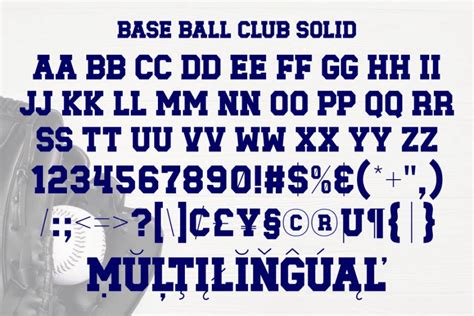
Download Baseball Club Fonts: Solid Style Guide
Hey guys! Ever wanted to give your project that classic, sporty vibe ? Well, you’re in luck! We’re diving deep into the world of baseball club fonts , specifically the solid style. These fonts are more than just letters; they’re a statement. They scream tradition, team spirit, and a whole lot of fun. In this guide, we’ll explore everything you need to know about finding and using these awesome fonts to make your designs hit it out of the park. Whether you’re designing a team logo, a sports-themed website, or just want to add a touch of athletic flair to your project, we’ve got you covered. Let’s get started and make your designs champions!
What Makes a Baseball Club Font ‘Solid’?
So, what exactly is a “solid” baseball club font, you ask? Think of it like this: it’s the unwavering foundation of your design. These fonts typically have a bold, robust appearance, leaving no room for negative space within the letterforms. They’re designed to be easily readable from afar, making them perfect for signage, jerseys, and any application where clarity is key. Unlike their outline or shadow counterparts, solid fonts are all about that in-your-face impact . They’re the workhorses of the sports design world, providing a strong visual anchor that exudes confidence and authority. Their straightforward nature makes them incredibly versatile, working well in both print and digital media. The design essence is to deliver a direct message! You won’t find any fancy flourishes or intricate details here; just clean, impactful letterforms that get the job done. The aesthetic draws inspiration from classic baseball uniforms, vintage sports logos, and the overall feel of a well-loved baseball stadium. You’ll often find these fonts used to represent teams, brands, and even individual players, so the goal is to bring the spirit of the game into your visuals. Moreover, understanding this is fundamental to your selection process.
Here’s a breakdown of the key characteristics:
• Bold and Thick Strokes : The most defining feature. These fonts use substantial line weights, ensuring they grab attention.
• High Readability : Designed for clarity, solid fonts excel in various sizes and across different mediums.
• Strong Visual Impact : Their weight gives them a commanding presence, perfect for grabbing attention.
• Versatility : Works well in various applications, from logos to headlines.
Using the Fonts in Your Design Software
Once installed, using the fonts is a breeze:
Conclusion: Go Get Those Fonts!
So there you have it, guys! You now have all the info you need to find, download, install, and use solid baseball club fonts to create some awesome designs. These fonts are a powerful tool for conveying the spirit of the game, whether you’re designing for a team, a brand, or a personal project. Go forth, download those fonts, and start creating! Happy designing, and may your designs be home runs! Remember, the right font can make all the difference, so take your time, explore your options, and have fun. Your project is unique, and it has the opportunity to make a statement! Get creative, experiment, and enjoy the process!